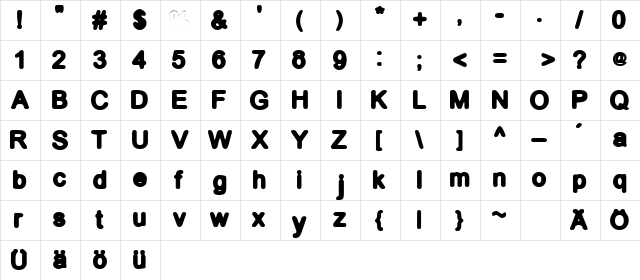
GF Becker Blured
| Style | Blured |
Design Context for GF Becker Typeface
GF Becker takes a measured approach to typography — its balanced proportions and neutral character make it a reliable workhorse for both digital and print work.